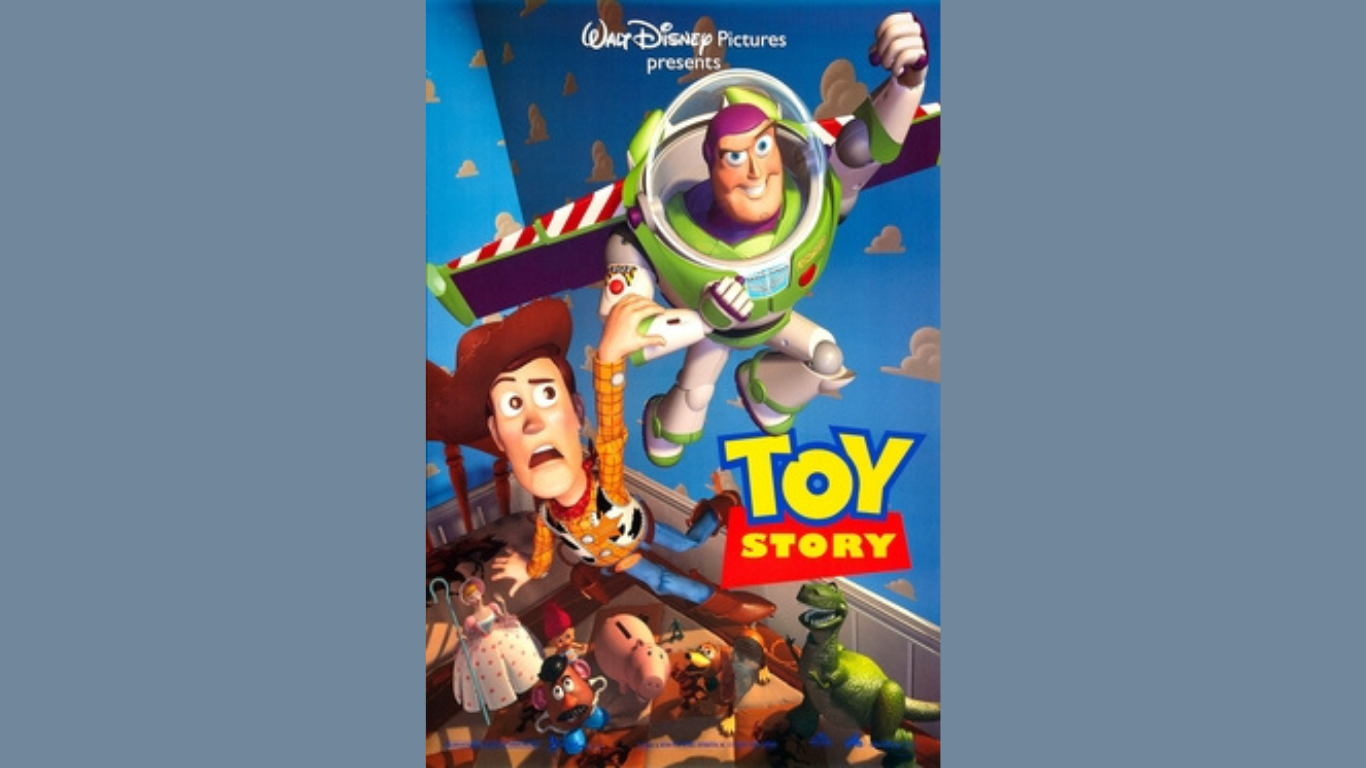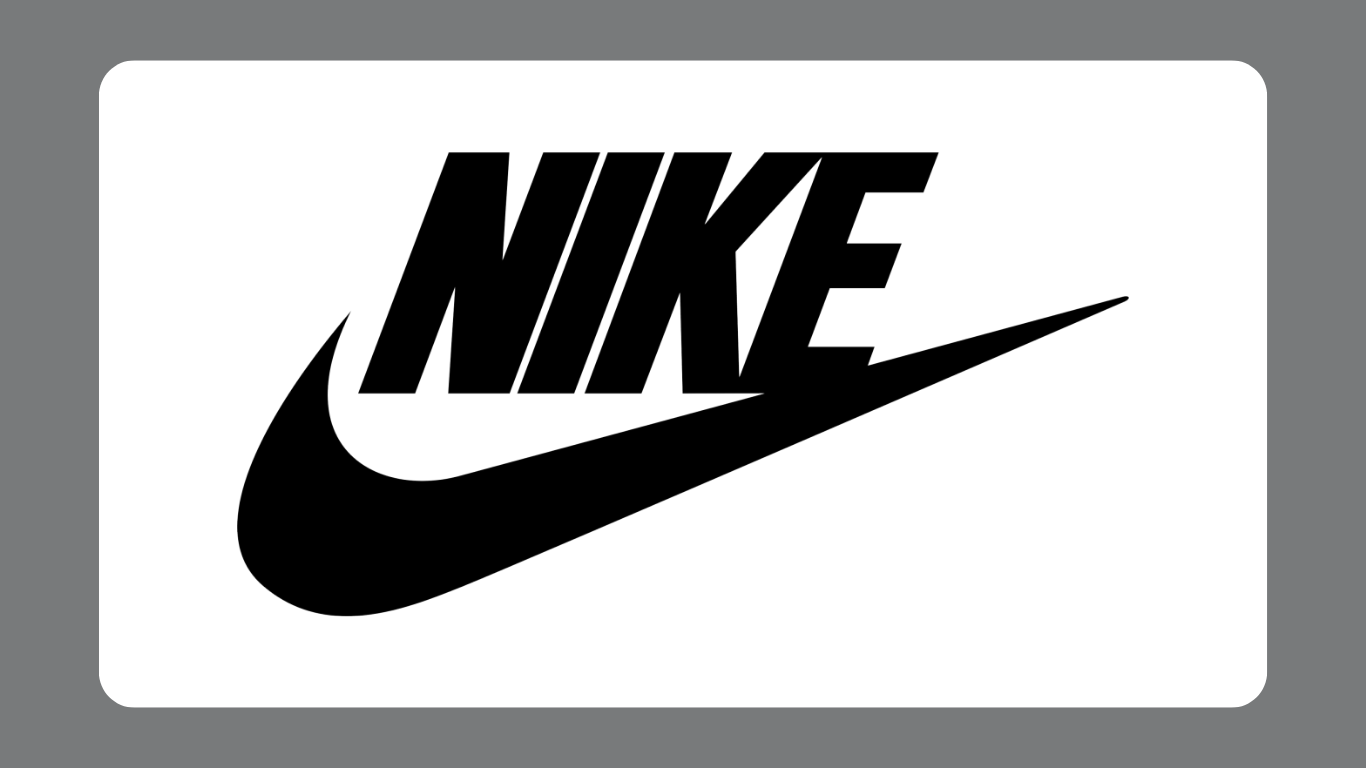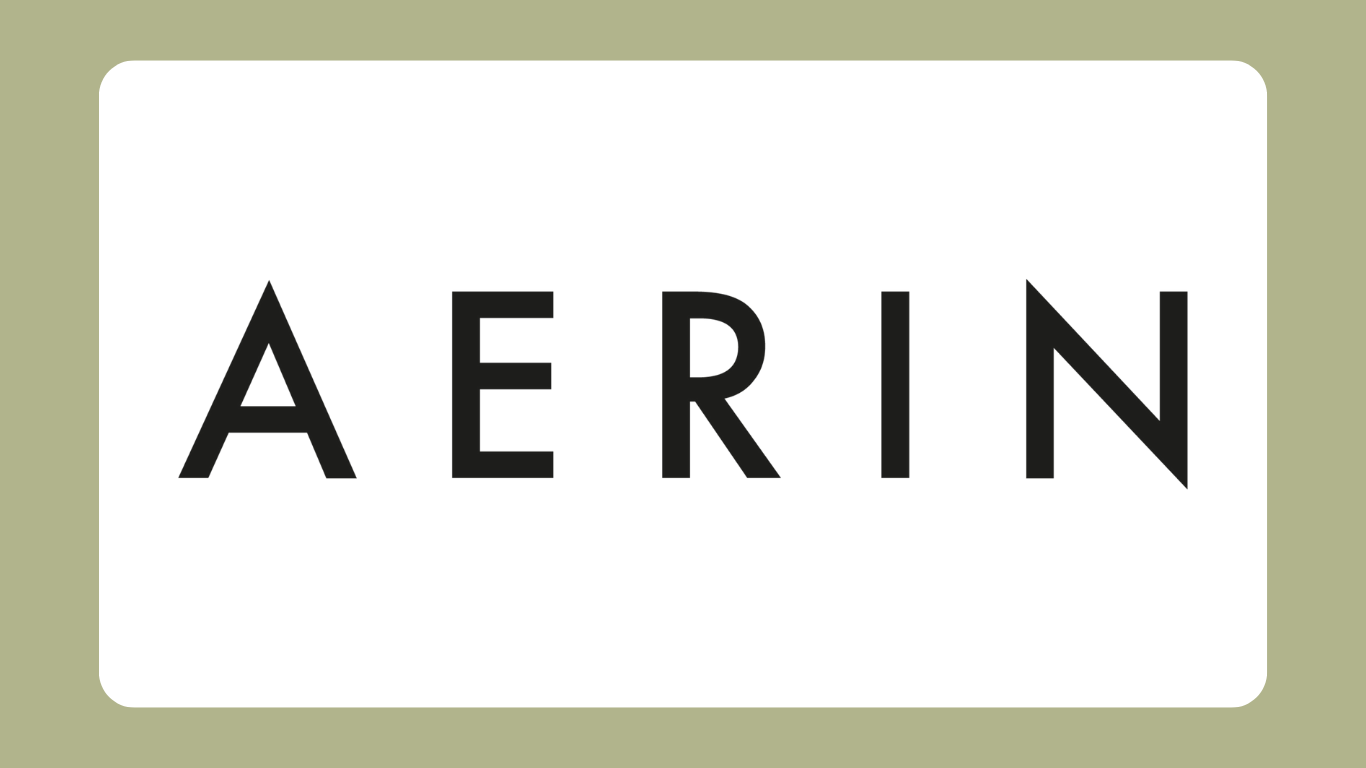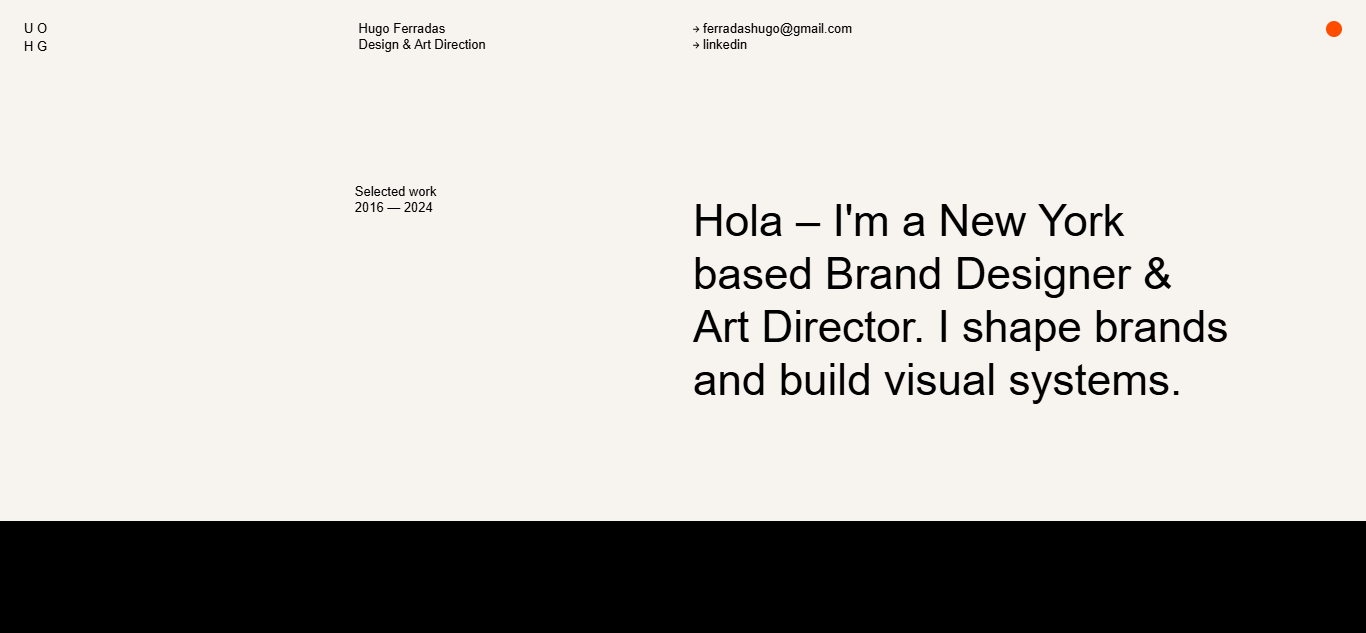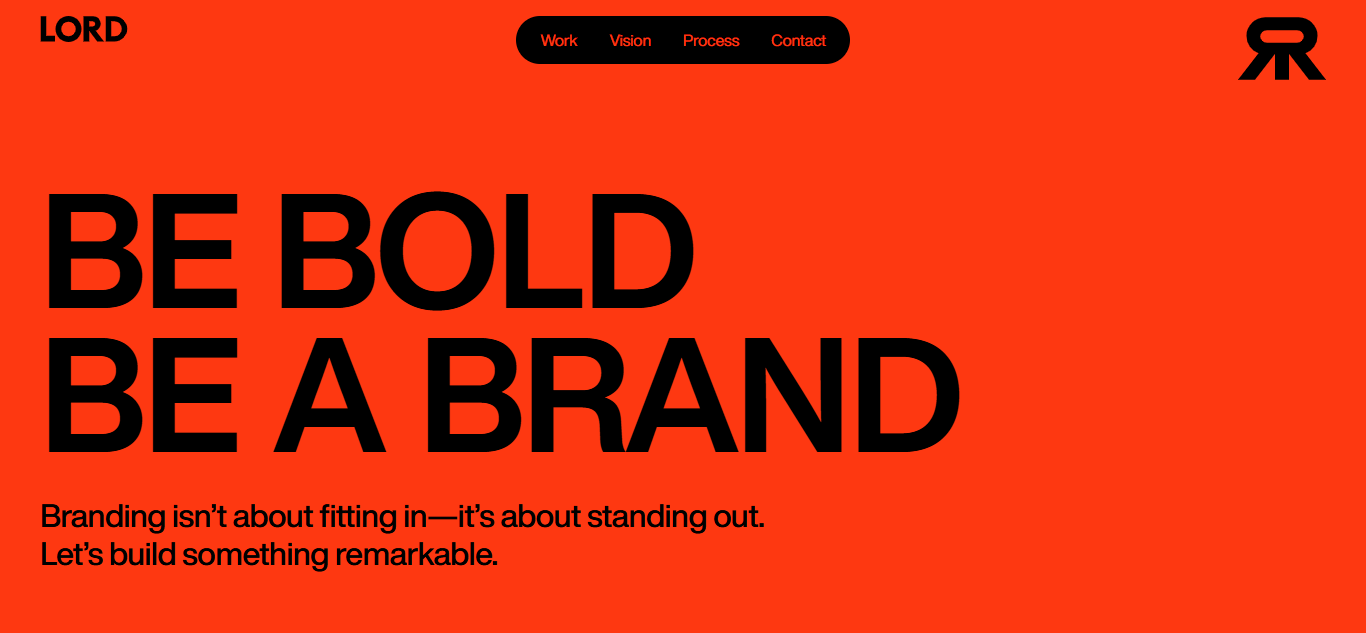
Today, many people use the terms “typeface” and “font” interchangeably, often without realizing they have distinct meanings. Understanding the difference between font vs typeface is essential to ensure clear communication when finishing graphic design projects. Let’s learn more about these terms!
Key Takeaways:
- A typeface is the overall type family that defines a particular style, while a font refers to a specific style, weight, and size within that typeface.
- Think of a typeface as a family, and each font as an individual member within that family.
- In practice, designers use fonts in their projects, while the term typeface is used to categorize and reference the broader design style.
Font vs Typeface: The Overview
Before we explore their roles in design, let’s clarify the font vs typeface definition, two terms often confused but fundamentally different.
Font
The term “font” actually has two meanings. In graphic design and typography, it refers to a specific style, weight, and size within a typeface. For example, Helvetica Bold 12pt and Helvetica Light 10pt are two distinct fonts within the Helvetica typeface family.
In computing, a font refers to the digital file that contains the data needed to display a typeface on a screen or in print. These files typically come in formats like TTF (TrueType Font) or OTF (OpenType Font).
These attributes can distinguish fonts within a typeface:
- Size: refers to the point size of the text, e.g., 10pt, 12pt, 16pt.
- Weight: indicates the thickness of the strokes, like thin, light, regular, bold, and black. Weight helps create emphasis and structure in text.
- Width (or Scale): Describes the horizontal stretch of the characters. Fonts can be condensed, normal, or extended.
- Style (Italics or Oblique): Italic fonts are typically slanted versions with stylistic changes to the letterforms, used for emphasis or contrast.
Typeface
When it comes to font vs typeface, the typeface is the broader term. It refers to a collection of letterforms sharing a consistent visual style. If a font is a specific member, then the typeface is the entire family.
Typefaces are often categorized into different style classifications. Here are some of the most common:
- Serif: Features small strokes at the ends of letters. Examples: Times New Roman, Georgia.
- Sans Serif: Clean and modern, with no extra strokes. Examples: Helvetica, Open Sans.
- Script: Mimics cursive handwriting for a decorative touch. Examples: Alex Brush, Allura.
- Display: Bold and unique, used for attention-grabbing designs. Examples: Diplomata, Lobster.
Font vs Typeface: The Comparison
Although the terms are often used interchangeably, there are situations where distinguishing between font and typeface is important, especially when communicating with teammates or clients. Using the correct terminology not only ensures clarity but also reflects professionalism.
Let’s look at the font and typeface differences in the comparison table below.
| Parameter | Font | Typeface |
| Definitions | A specific design, weight, and size of a typeface. | A family of related fonts. |
| Scope | Specific. | Broader. |
| Example | Arial Bold 12pt, Times New Roman Italic 14pt. | Arial, Garamond, and Times New Roman. |
| Variation | Depending on weight, size, scale, and style. | Has diverse artistic variations, like sans serif, serif, and display. |
| Use Case | To describe the usage in design. | To describe the aesthetic of typography design. |
Font vs Typeface: The Brief History
In the 16th century, font and typeface had distinct meanings. The word font comes from the French “fonte,” meaning ‘cast in metal,’ referring to the physical blocks used by printers. At the time, printers used metal casts to create complete sets of letters in a specific size and style. Each of these was a font.
Meanwhile, a typeface is the design that unifies multiple fonts, including sizes, weights, and styles. These metal letters were arranged by hand, inked, and pressed onto paper to produce printed pages.
The distinction between font and typeface has blurred with the rise of desktop publishing. Operating systems typically use “font” instead of “typeface.” You can even install an entire typeface family within a single font file on your computer.
Typeface vs Font: The Examples
To better understand the difference, let’s see font vs typeface examples to clarify their real-world applications.
Movie Poster Design
Typography gives a design clearer meaning and helps set the mood in films. A well-chosen typeface can enhance the viewer’s imagination and strengthen a movie advertisement’s impact.
Gill Sans is a typeface commonly used in films, though each movie may choose a different font from its family. 2001: A Space Odyssey used Gill Sans Bold to emphasize tension and a futuristic, technological tone.
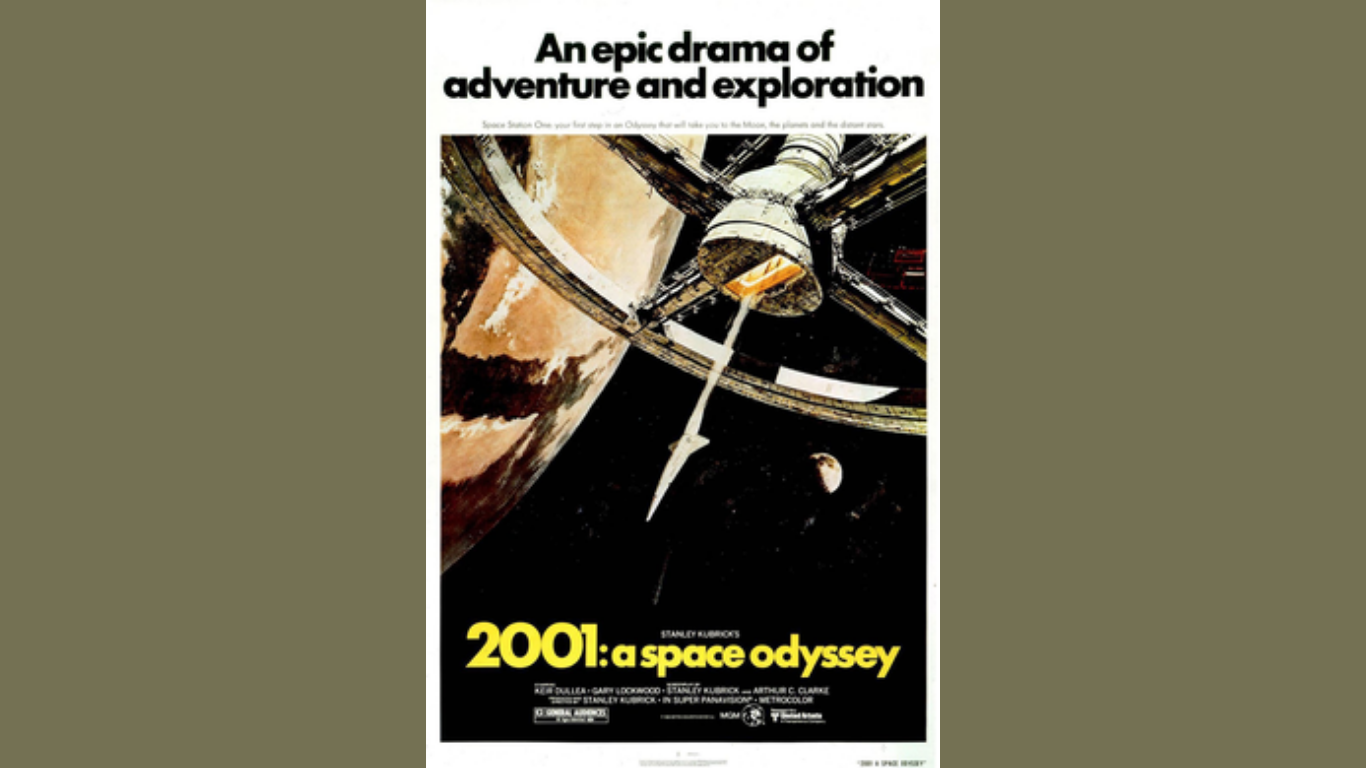
Ready to Use the Right Terms in Your Next Design?
Understanding the font vs typeface difference helps you communicate more clearly and design more effectively. By using the right term, you can show professionalism and make a big impact in creative work.If you want to dive deeper into the world of fonts and typefaces, start with Salamah Type. Discover unique and versatile typefaces for creative projects, from web design to product branding. Whether it’s serif, script, or display, our curated collection can make your next design truly iconic.